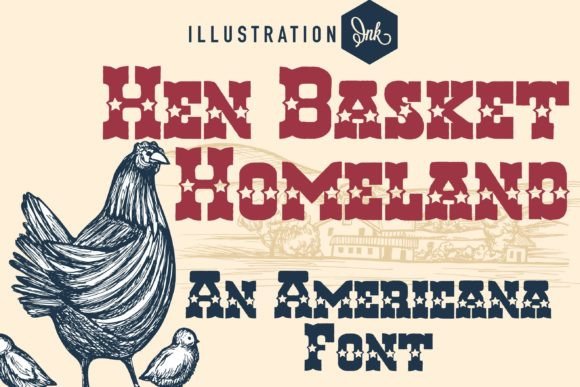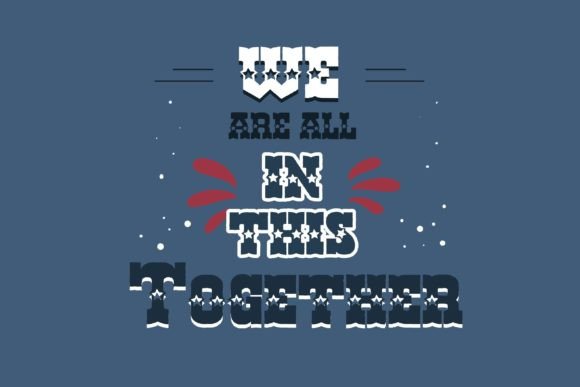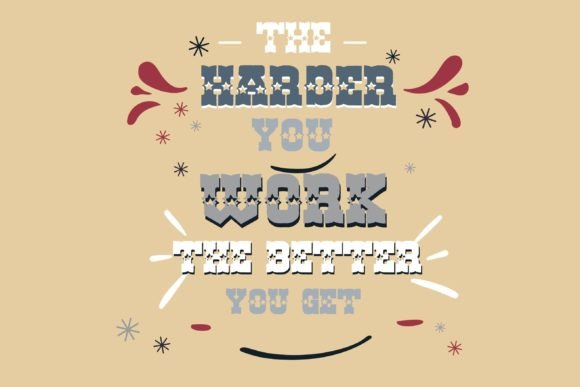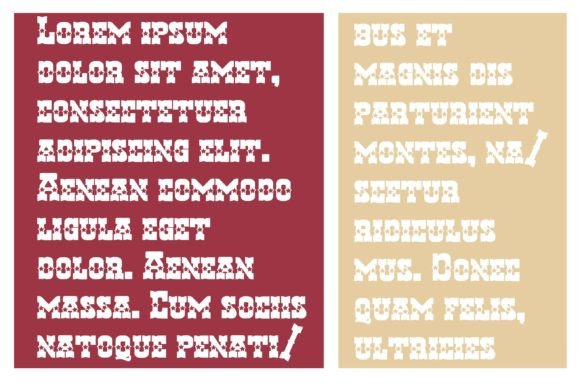
Hen Basket Homeland Font: A Rustic & Bold Display Font
About the Hen Basket Homeland Font
Let us introduce you to Hen Basket Homeland Font, where timeless design meets modern craftsmanship. Hen Basket Homeland font combines classic Western aesthetics with a touch of celestial flair. This captivating typeface features bold, rugged letterforms reminiscent of the Old West, while delicately scattered stars throughout the design add a touch of whimsy and enchantment.
Hen Basket Homeland excels in headline applications, short-form text on posters, and branding projects requiring a touch of Western flair. Its strong letterforms command attention, making it ideal for logos and short impactful statements. However, the detailed star elements and bold weight make it less suitable for body copy or UI elements where readability over long stretches of text is crucial.
This font’s personality is bold and adventurous, yet retains a touch of whimsical charm. To balance this, consider pairing it with a clean sans-serif like Montserrat for body text or a more delicate serif like Lora for a sophisticated contrast. For a more playful approach, a handwritten script font could complement its rugged charm.
Avoid pairing it with other heavily decorated or highly contrasting typefaces, which might create visual clutter. A simpler, more neutral companion font will allow Hen Basket Homeland to shine.
Hen Basket Homeland Font Usage Examples
Hen Basket Homeland Font Example